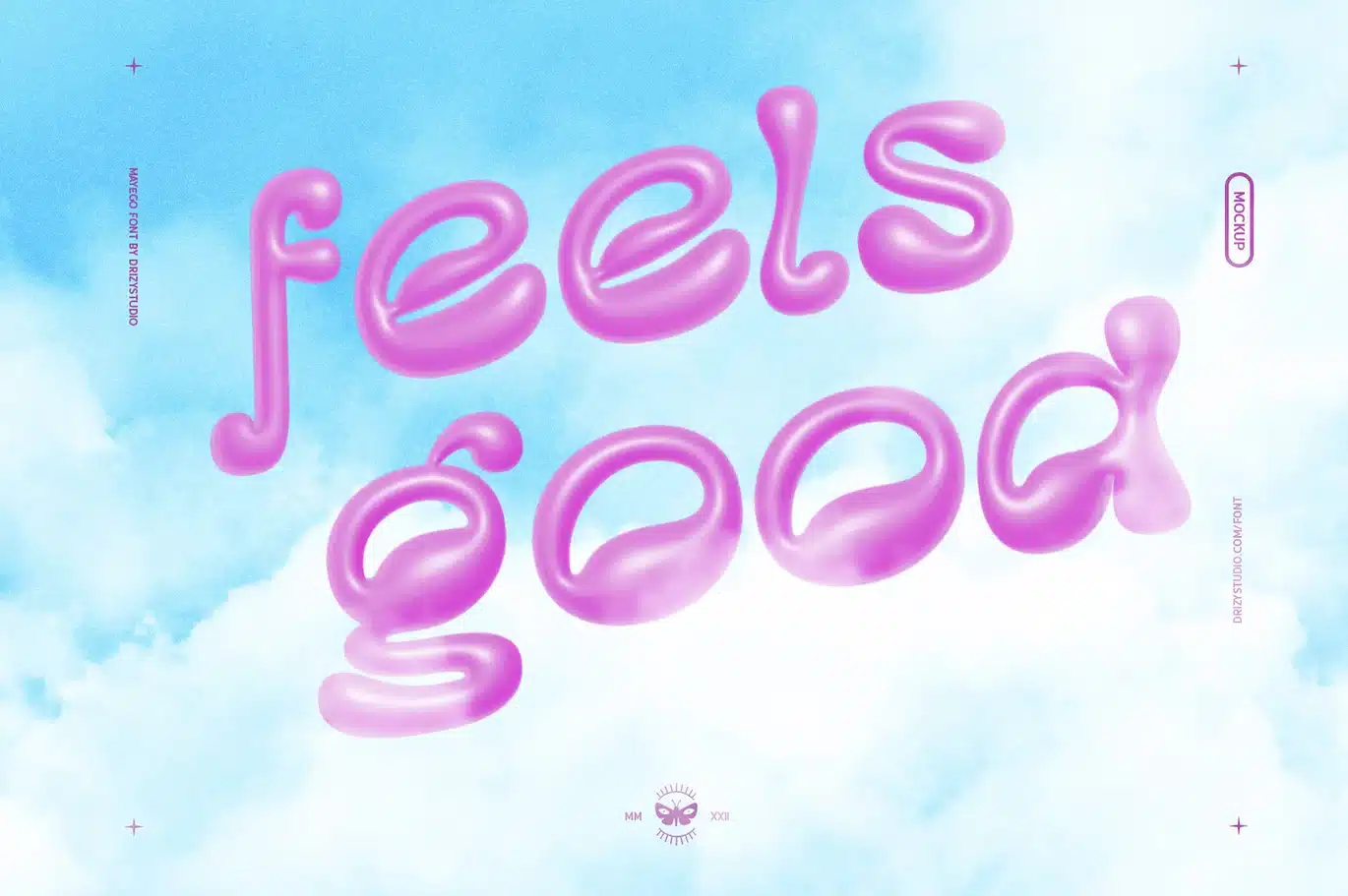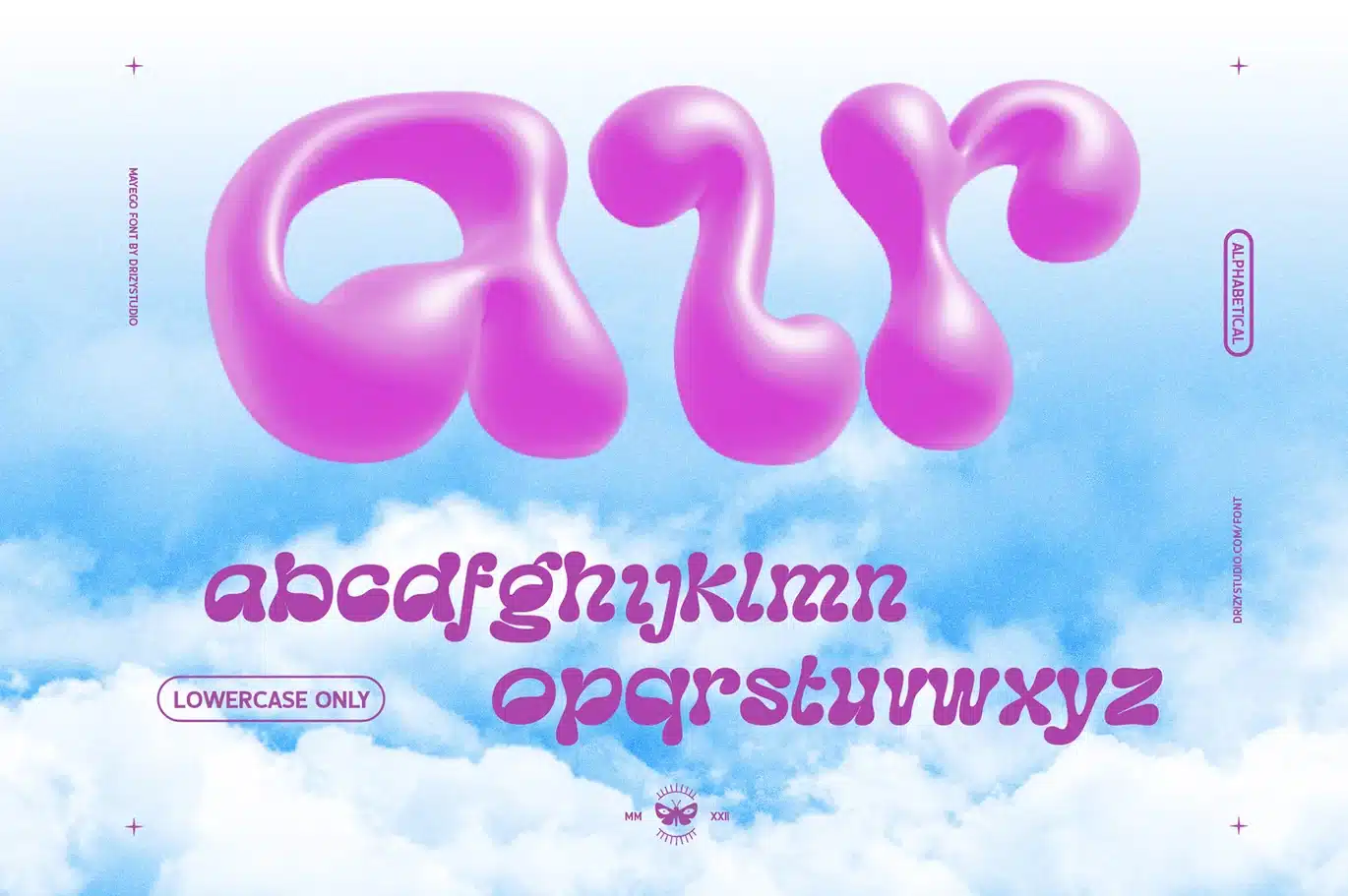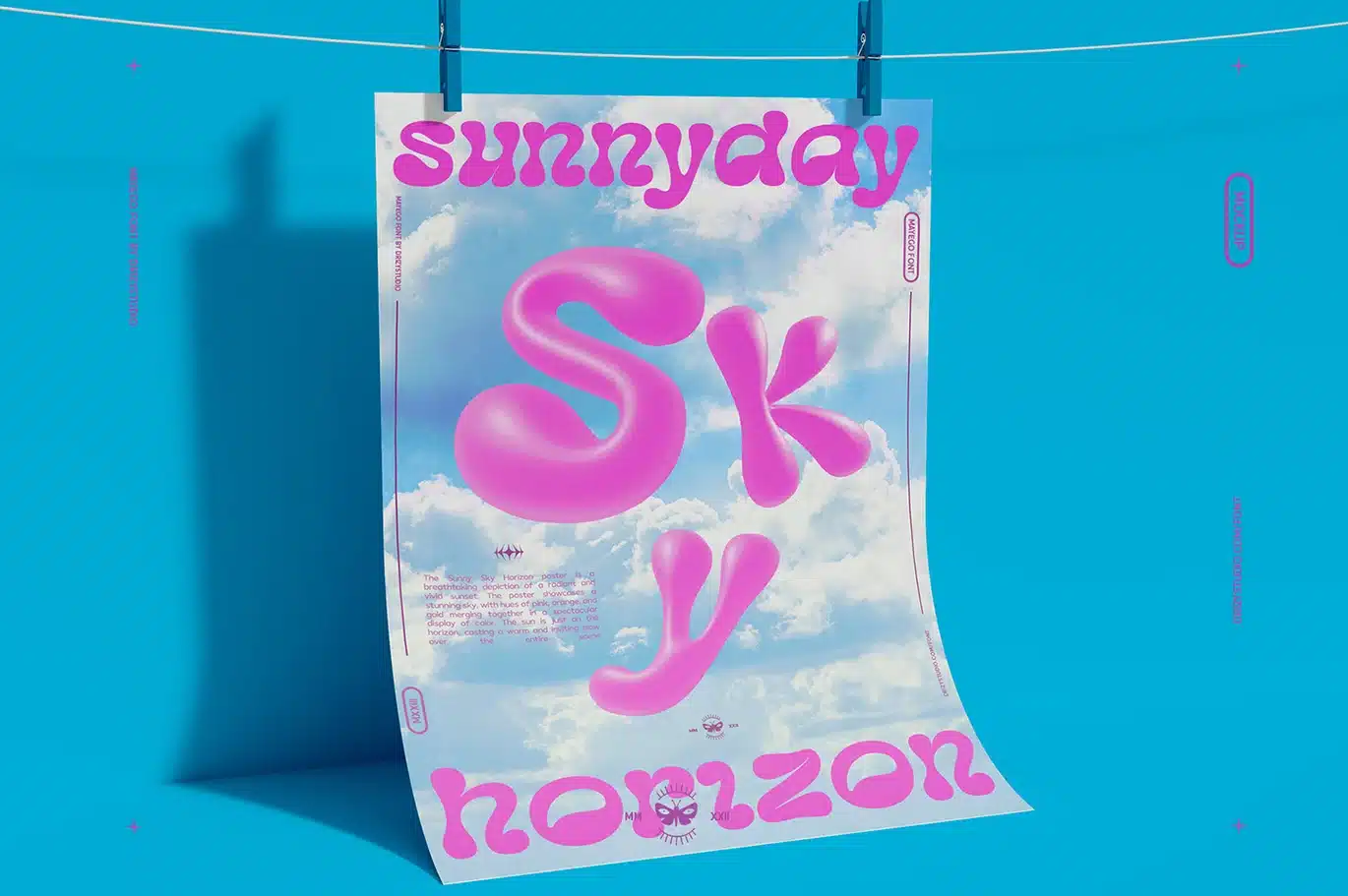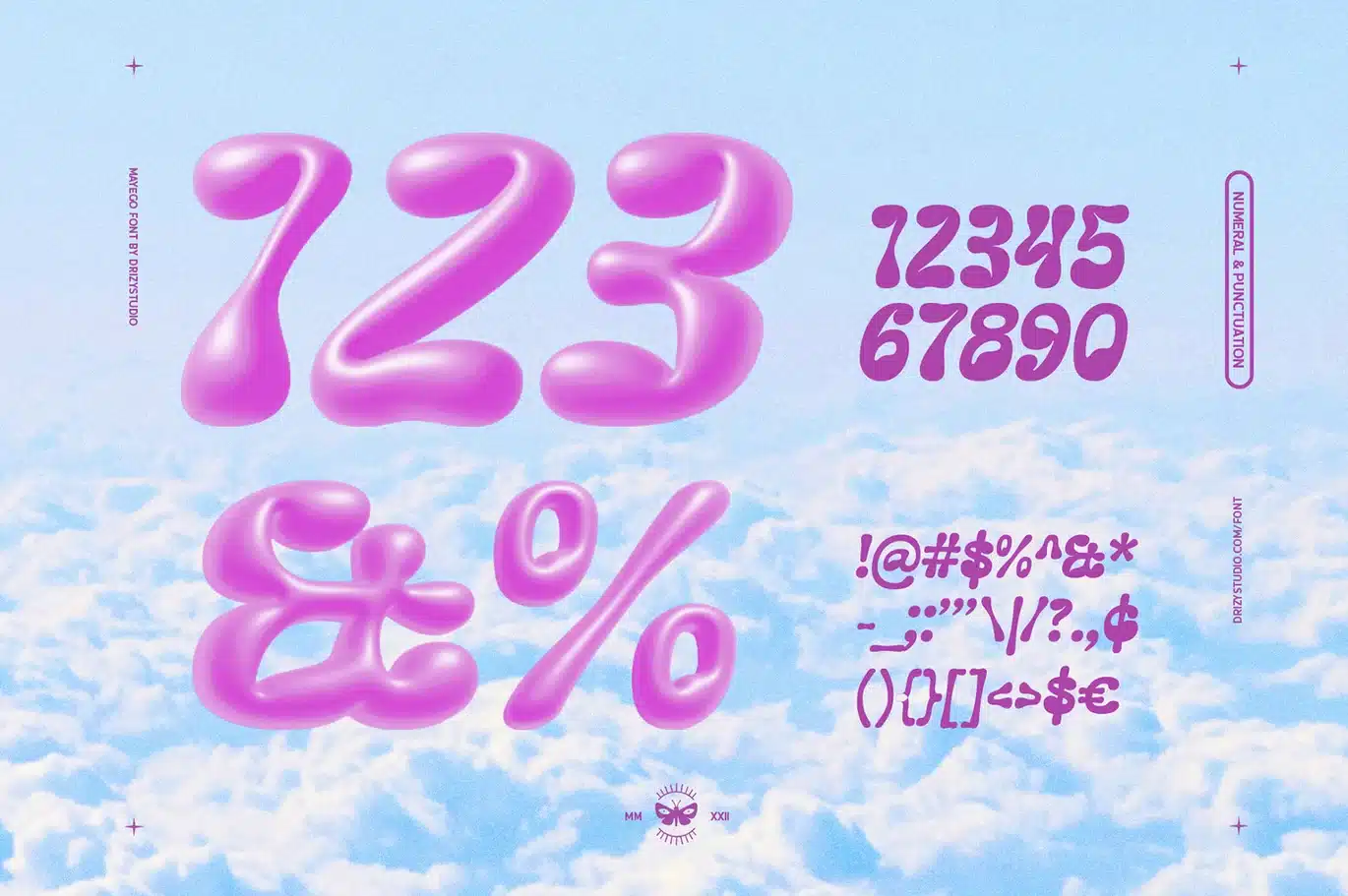
Mayego – Experimental Warped Font
Mayego is an adorable Experimental Warped Font from Drizy Studio. Offering the playful wonder style you need for your projects.
Mayego features:
- Lowercase letters
- Numbers
- Multilinguals